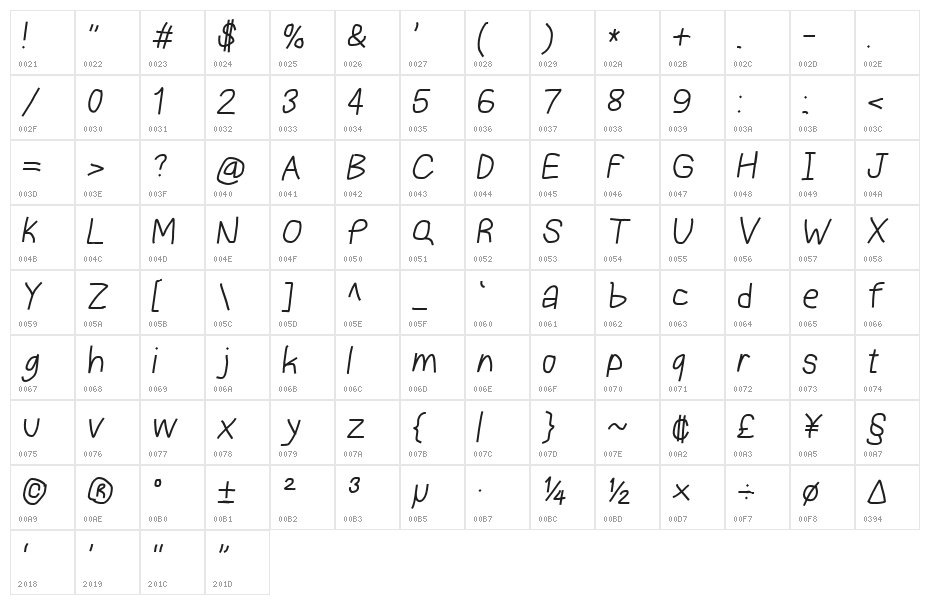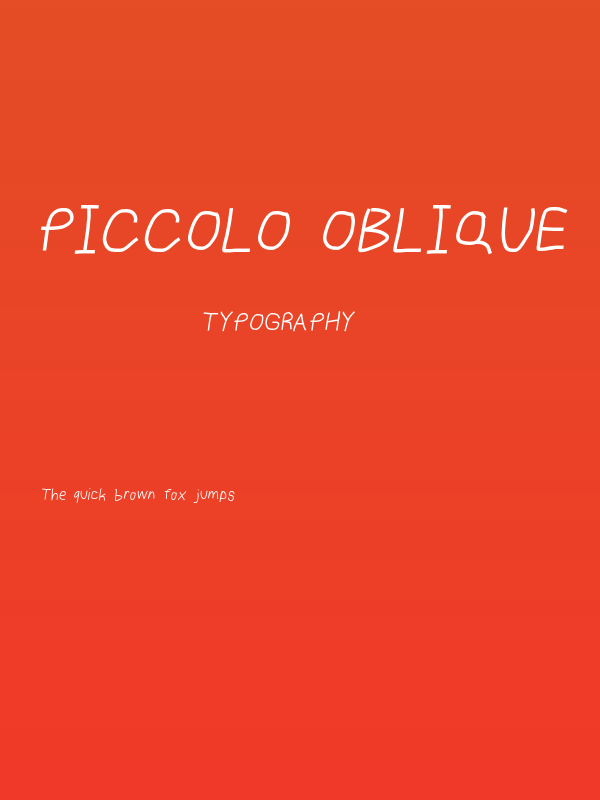
Piccolo Oblique Font
Piccolo Oblique Description
This font features a playful, handwritten style with a slight oblique slant, giving it a dynamic and informal appearance. The characters are crafted with a consistent stroke width, providing a uniform look across both uppercase and lowercase letters. The numerals and special characters maintain the same whimsical quality, making them blend seamlessly with the alphabet. The overall design is clean and legible, with a touch of personality that makes it stand out. The spacing between characters is balanced, ensuring readability while maintaining its unique style.
| Overall Style | Playful, Informal |
| Use Case | Headlines, Informal Text, Creative Projects |
| Proposed Projects | Ideal for casual invitations, children's books, playful branding, and creative social media graphics. |